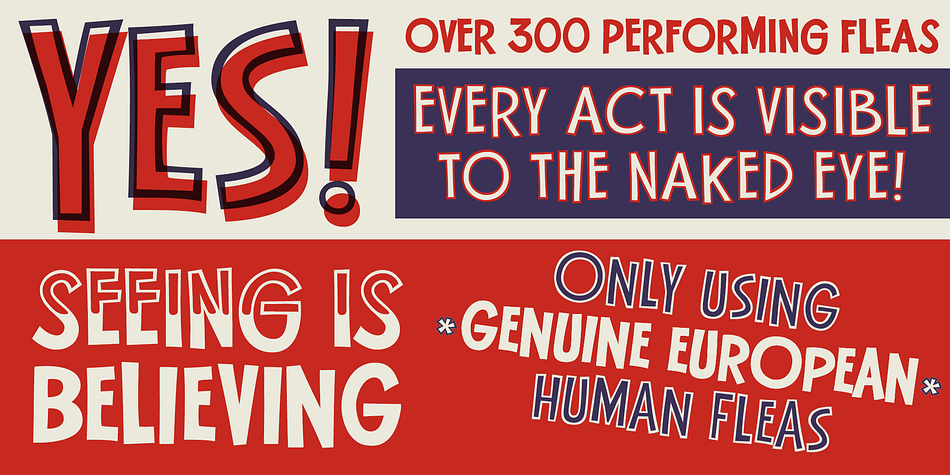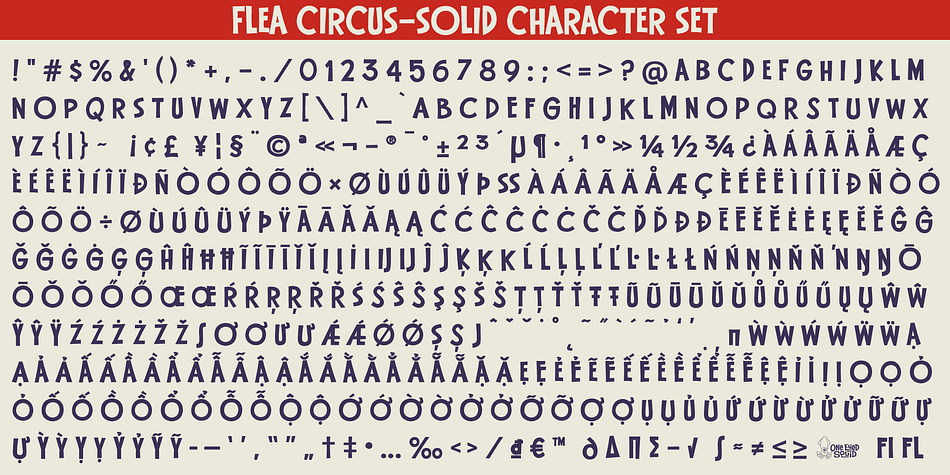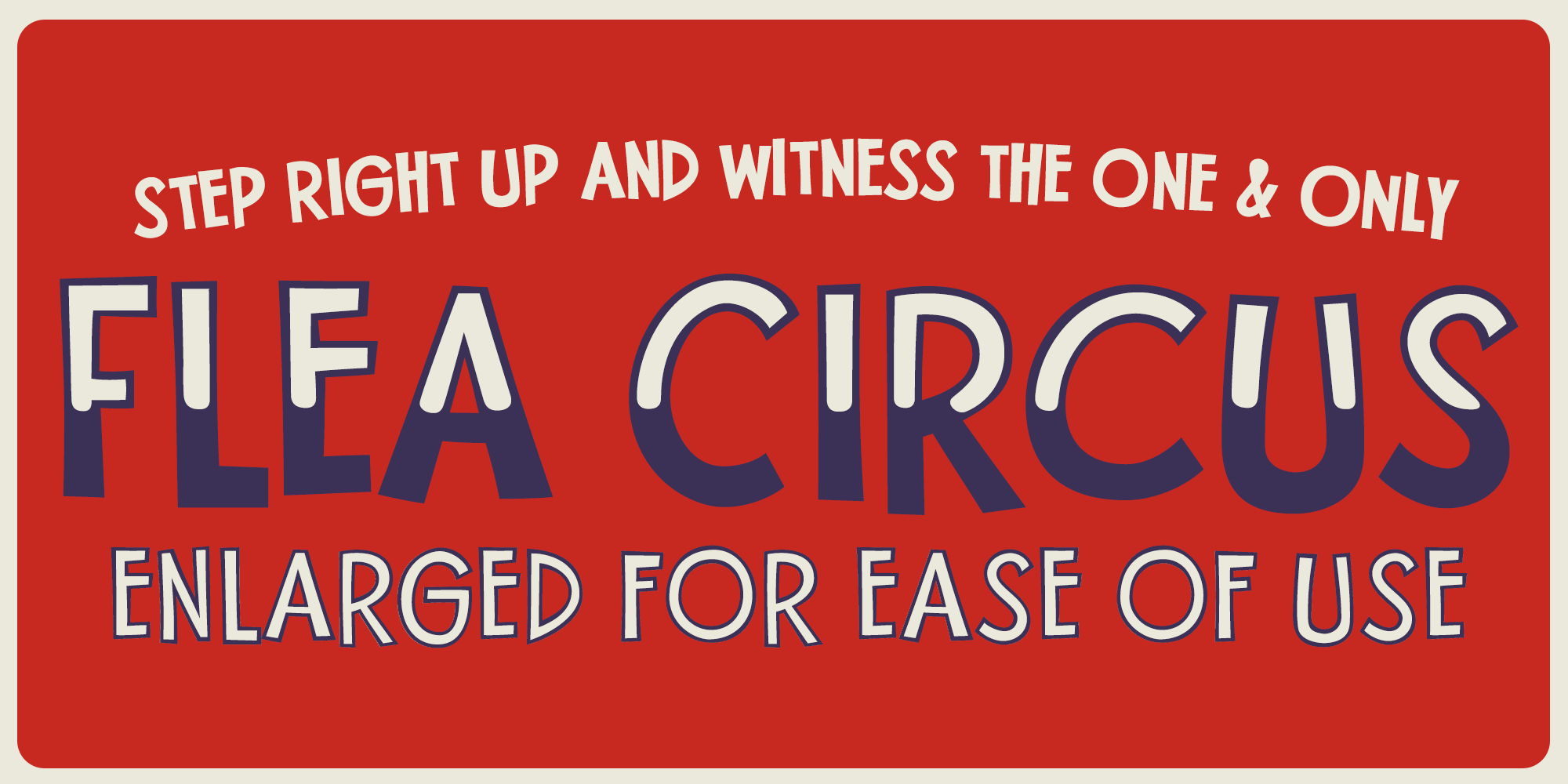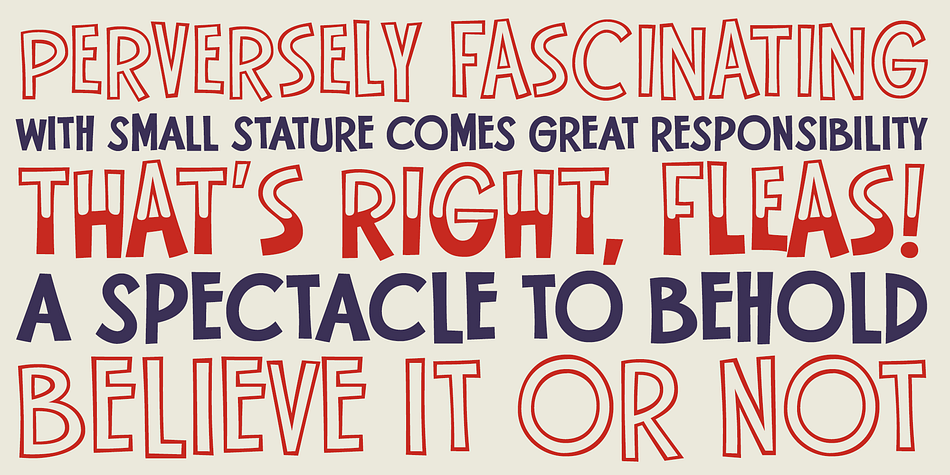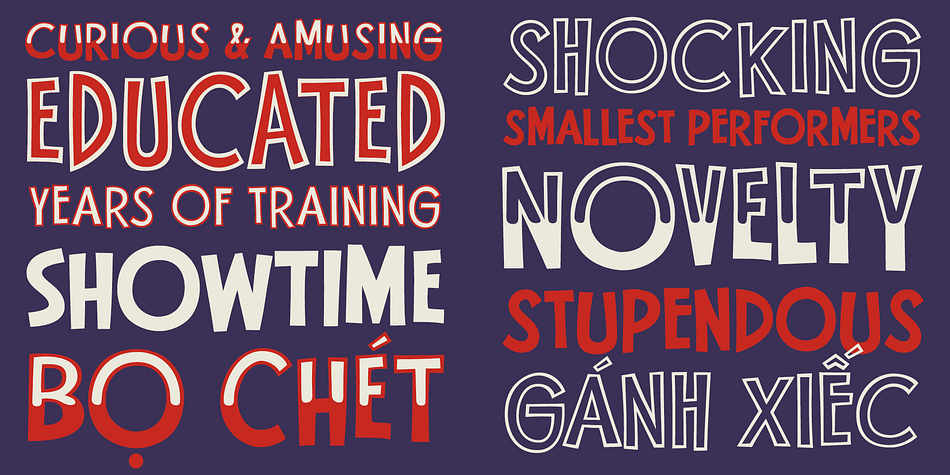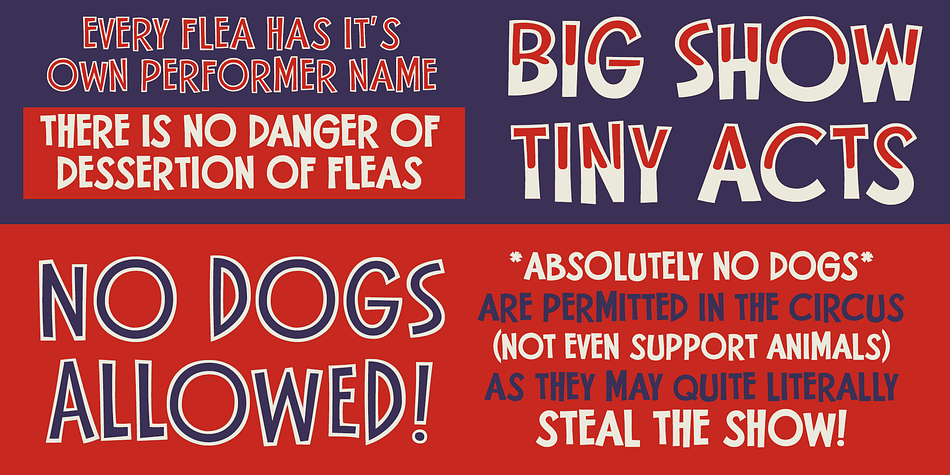
Flea Circus
Designed by Dave Cohen and Brian J. Bonislawsky, Flea Circus is a display sans font family. This typeface has four styles and was published by One Eyed Squid.
Step right up to the tiny typographical tent and be stupefied by Flea Circus! Don’t fret its minute origin for we here at One Eyed Squid have expertly enlarged it to be visible to the naked eye. Layer the Fill variation over Solid, of the Regular over Solid, to play with multiple color styling. Regular (Outline), Solid or Dipped, you’ll get the itch for Flea Circus and you can get it for just a little scratch!
(Flea Circus contains an extended Latin character set with added Vietnamese support.)
Foundry One Eyed Squid
Designers Dave Cohen, Brian J. Bonislawsky